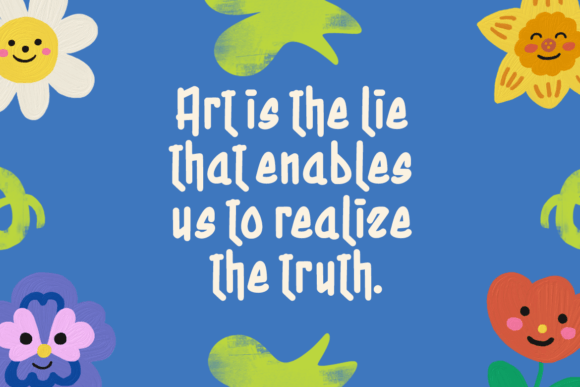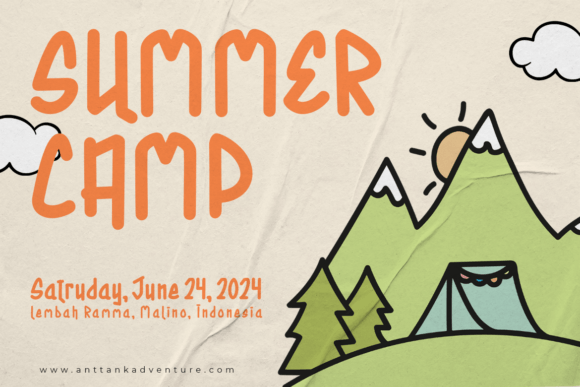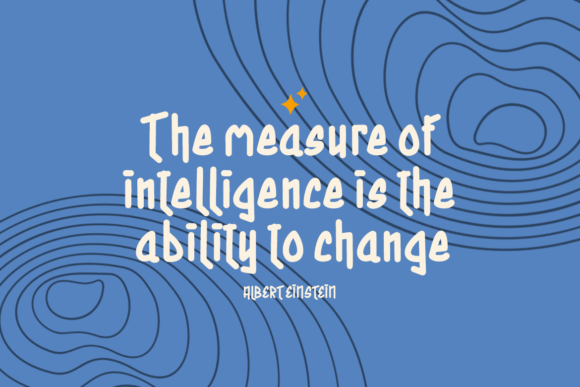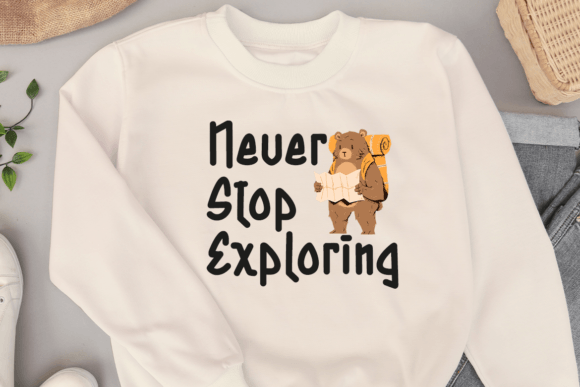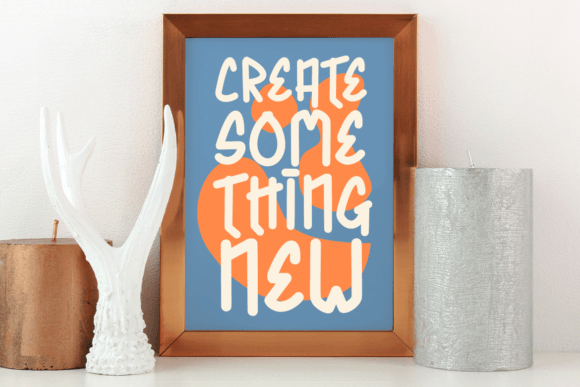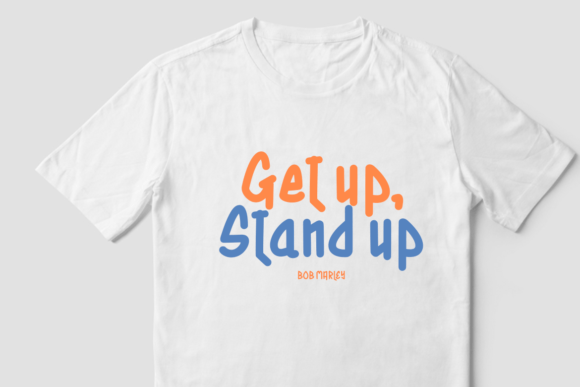
Introducing Artisans Font: The Ultimate Display Font for Creative Projects
Are you a designer, crafter, or DIY enthusiast looking for a font that can add a touch of playfulness and versatility to your creative projects? Look no further than Artisans Font! This delightful display font is perfect for a wide range of applications, from greeting cards and headlines to posters, flyers, and more.
What Makes Artisans Font So Special?
Artisans Font is a carefully crafted display font that boasts a unique blend of playfulness and sophistication. Its clean lines, subtle curves, and balanced proportions make it an excellent choice for any project that requires a fun and modern feel. Whether you’re creating a handmade card, a bold headline, or a decorative poster, Artisans Font is sure to impress.
Key Features of Artisans Font
- Versatile: Artisans Font is suitable for a wide range of applications, from digital designs to print materials.
- Playful: The font’s playful feel makes it perfect for projects that require a touch of whimsy and fun.
- Clean: Artisans Font features clean lines and subtle curves, ensuring that your designs look modern and sophisticated.
- Easy to Read: The font’s balanced proportions and clear lettering make it easy to read, even at smaller sizes.
Use Cases for Artisans Font
Artisans Font is an incredibly versatile font that can be used in a variety of creative projects, including:
- Greeting Cards: Add a personal touch to your handmade cards with Artisans Font.
- Headlines: Make your headlines stand out with Artisans Font’s bold and playful feel.
- Posters: Create eye-catching posters for events, promotions, or announcements.
- Flyers: Add a touch of fun and playfulness to your flyers with Artisans Font.
- Social Media Graphics: Use Artisans Font to create engaging social media graphics that showcase your brand’s personality.
Tips for Using Artisans Font
To get the most out of Artisans Font, here are a few tips to keep in mind:
- Experiment with Sizes: Artisans Font looks great at a variety of sizes, so don’t be afraid to experiment and find the perfect size for your project.
- Pair with Other Fonts: Combine Artisans Font with other fonts to create a unique and visually appealing typography scheme.
- Use it Sparingly: While Artisans Font is perfect for headlines and titles, it’s best to use it sparingly to avoid overwhelming your design.
| Font Name | Artisans Font |
| Author | Masa Aska Sanurumi |